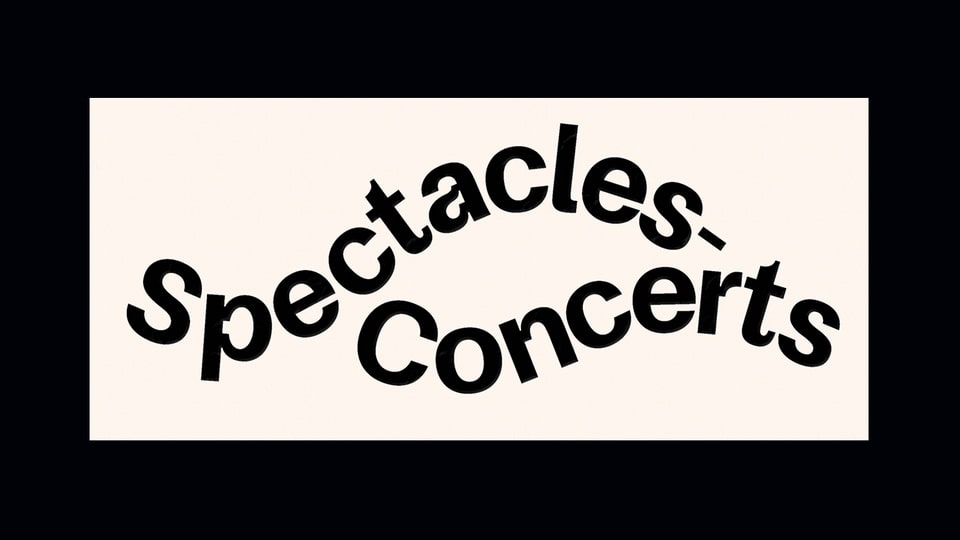
St. Martin Font Family › Fontesk – Download Grátis
Download St. Martin font, an experimental revival that breathes new life into a forgotten 19th-century typographic quirk. Inspired by the distinctive work of Parisian printer Jean-Alexis Rouchon.
Designer: Carl J. Kurtz